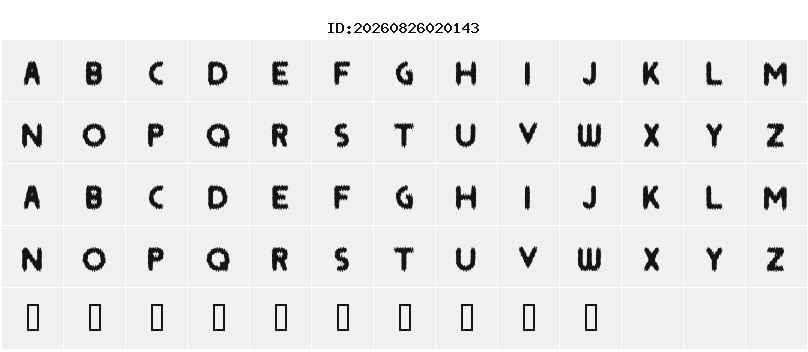
SAINT Preview
• Font Name: SAINT
• Font Style: SAINT
• Full Font Name: SAINT
• Designer: SAJI JOHNNY KUNDUKULAM
About SAINT.ttf
SAINT.ttf is a modern, elegant sans-serif font designed for ultimate readability and visual harmony. Perfect for branding, headlines, web design, and print materials.